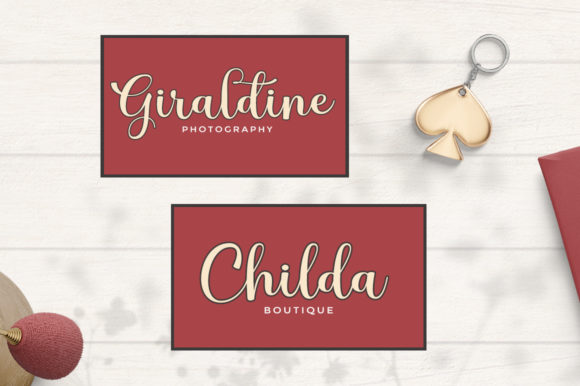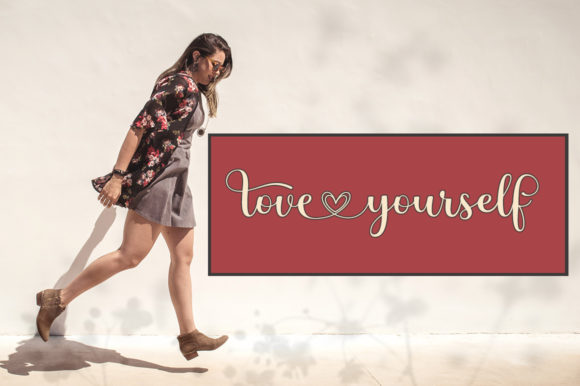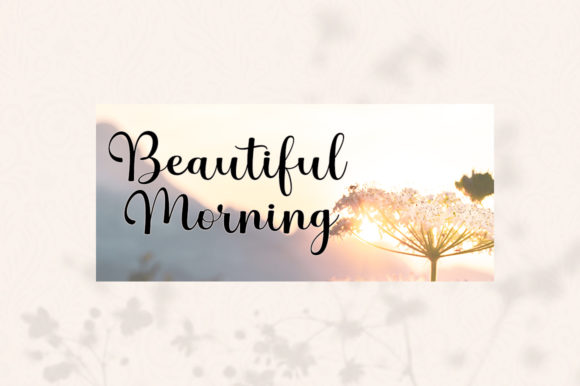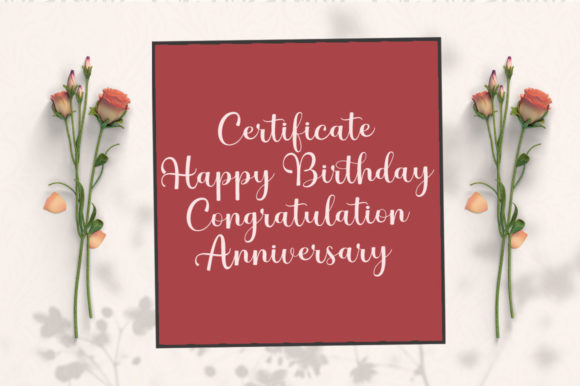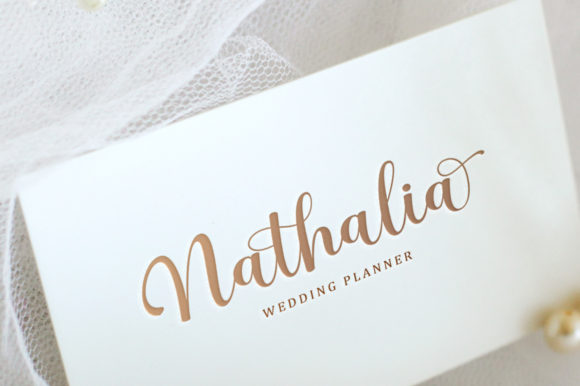
Introduction to Hello Belly Font
As a designer, there’s nothing quite like the thrill of bringing a creative idea to life. The spark of inspiration hits, and suddenly you’re envisioning the perfect typography, color palette, and design elements to make your project shine. But, let’s be real – the right font can make all the difference. That’s where the Hello Belly Font comes in – a sweet, all-round, and flexible handwritten font that’s sure to turn your project ideas into real works of art.
With its warm, romantic, and jolly vibe, this font is the perfect design resource for any creative project. Whether you’re working on a wedding invitation, a children’s book, or a social media campaign, the Hello Belly Font is sure to add a touch of elegance and whimsy to your design. And the best part? It’s PUA encoded, making it easy to access all of the glyphs and swashes you need to take your design to the next level.
Key Features of Hello Belly Font
- Unique, cursive script font ideal for creative projects and design resources.
- High-quality font with a transparent background, perfect for use on any background color.
- Perfect for greeting cards, invitations, and other design projects that require a personal touch.
Honest Review: Hello Belly Font
I recently stumbled upon the Hello Belly Font while searching for free download design resources for a creative project. I was immediately drawn to its unique and playful style, which makes it perfect for projects that need a touch of whimsy.
However, I did encounter some limitations with the Hello Belly Font. The font is only available in a limited number of languages, which might be a drawback for designers working on projects that require multilingual support.
Overall, I’m impressed with the Hello Belly Font. Its unique style and versatility make it an excellent addition to any designer’s toolkit. While it may have some limitations, it’s a high-quality design resource that’s definitely worth checking out.
The Hello Belly Font is ideal for a variety of creative projects, including digital art, graphic design, and typography-based designs. Its unique style and high-quality design make it a great addition to any design resource collection.